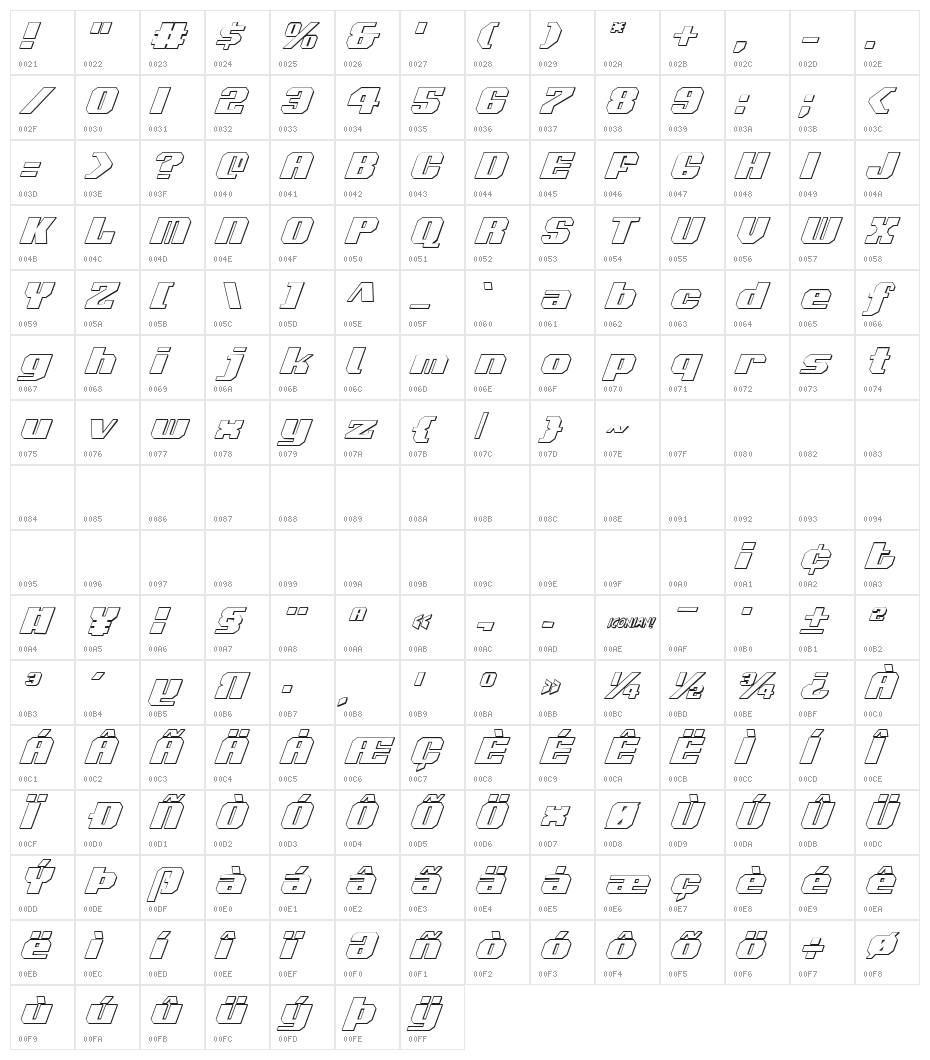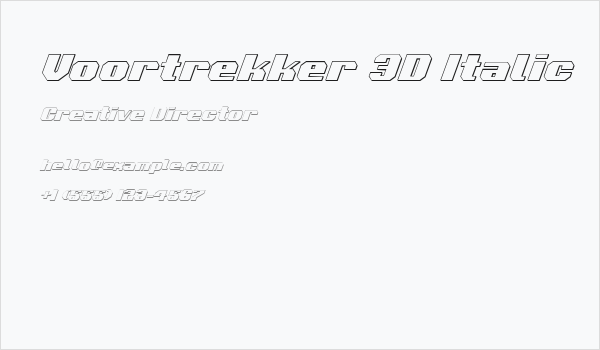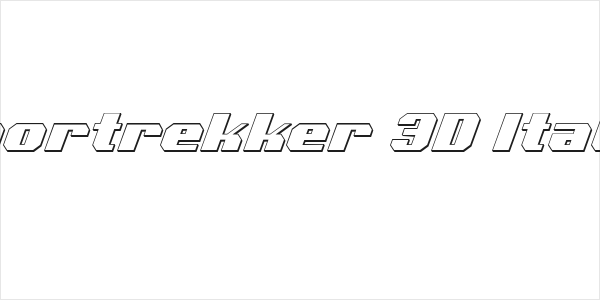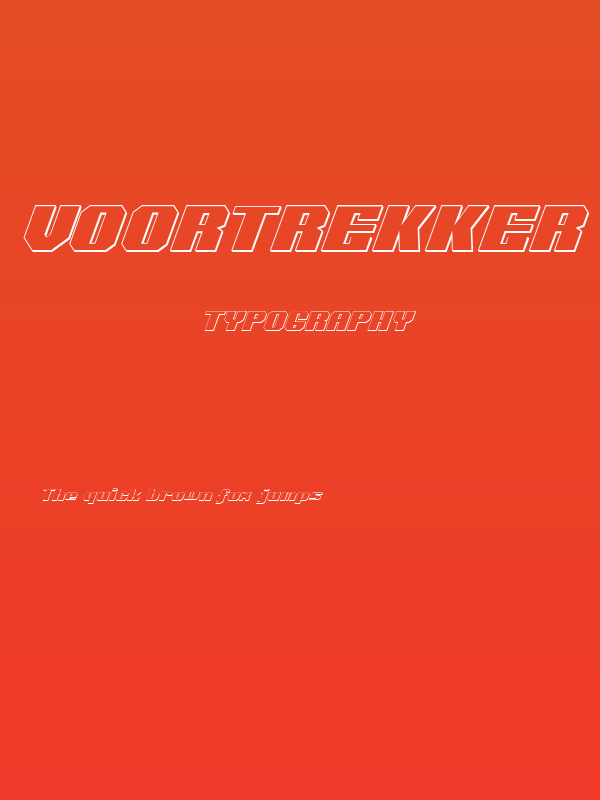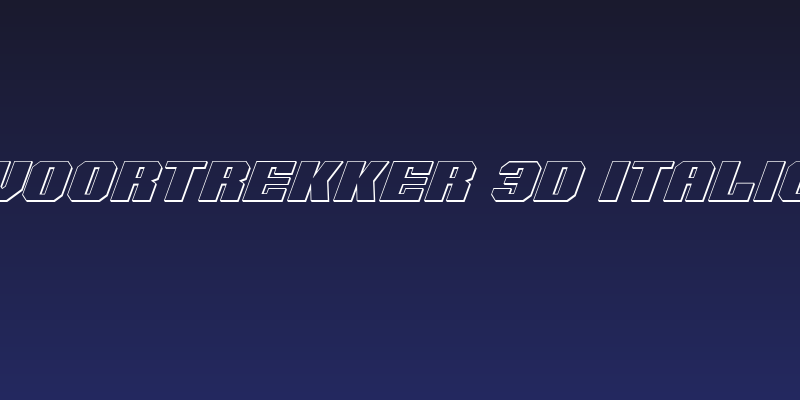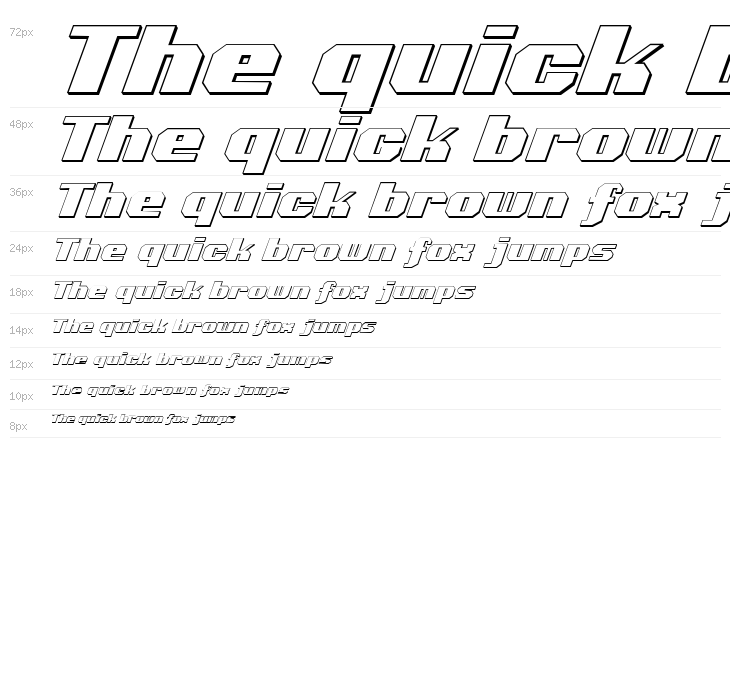
Voortrekker 3D Italic Font
Voortrekker 3D Italic Description
This font features a bold, three-dimensional design with an italic slant, creating a dynamic and futuristic appearance. The characters are outlined, giving them a distinct, hollow look that enhances their 3D effect. The uppercase and lowercase letters maintain a consistent style, with angular edges and a geometric structure. The numerals and special characters follow the same design principles, ensuring uniformity across all glyphs. This font's unique style makes it ideal for projects that require a modern and eye-catching typeface.
| Proposed Projects | Ideal for video game titles, sci-fi posters, and modern branding projects. |